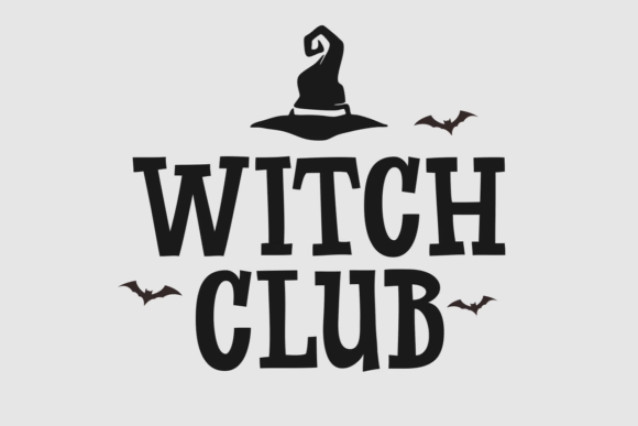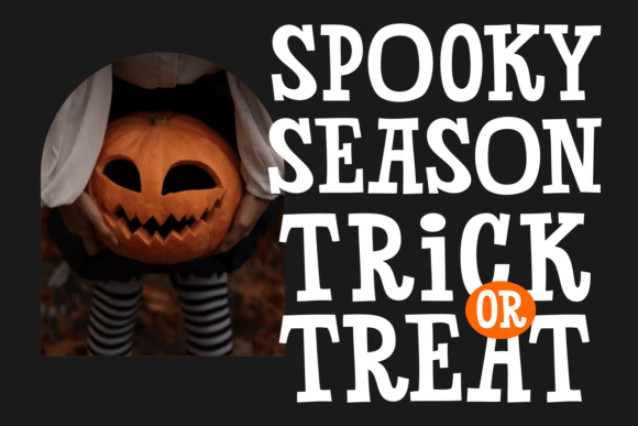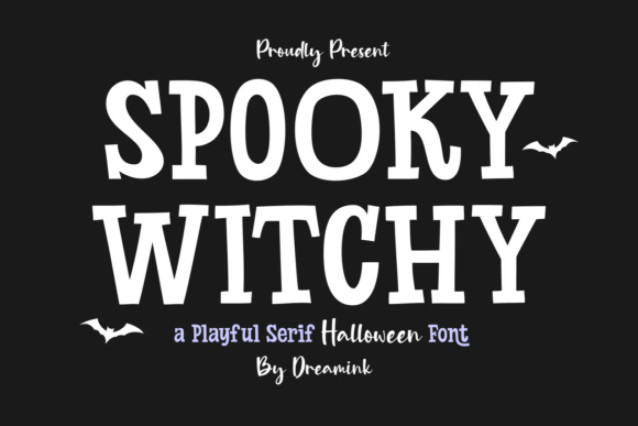
Spooky Witchy Font
Immerse yourself in a magical world of twilight forests, moonlit nights, and beguiling All Hallow’s Eve, courtesy of Spooky Witchy, a beguiling serif typeface. With its audacious script, captivating curves, and uniquely charming perspective, this font weaves a web of intrigue, merging spectral whispers with a light-hearted, jovial spirit. Spooky Witchy is born from the essence of traditional Halloween spirit, aged storybooks, captivating folk tales, and the festive merriment of autumn celebrations.
It promises to breathe charm and character into every project, lending them a hauntingly beautiful and unforgettable edge. This stunning serif style boasts an undeniable visual attraction, all the while maintaining a lighthearted, inviting aura—great for professional and personal projects alike.
Whether you’re crafting invitations for a haunted house party, designing spine-chilling greeting cards, staging seasonal campaigns, creating enchanting children’s books, or working on digital visuals, merchandise, posters, or festive decorations, Spooky Witchy effortlessly bewitches your designs with its whimsical grace. It shines bright in attention-stealing headlines and artful typesetting arrangements, each stroke of Spooky Witchy echoing a handcrafted, harmonious look that is both charmingly delightful and compellingly eerie.
Spooky Witchy is ideal to enhance a variety of projects: bold witch-themed branding and packaging, autumn crafts, party invitations and decor, clothing and fashion designs, whimsical children’s literature, eye-catching online content, banners and directional signage, printable items, seasonal products, and much more.